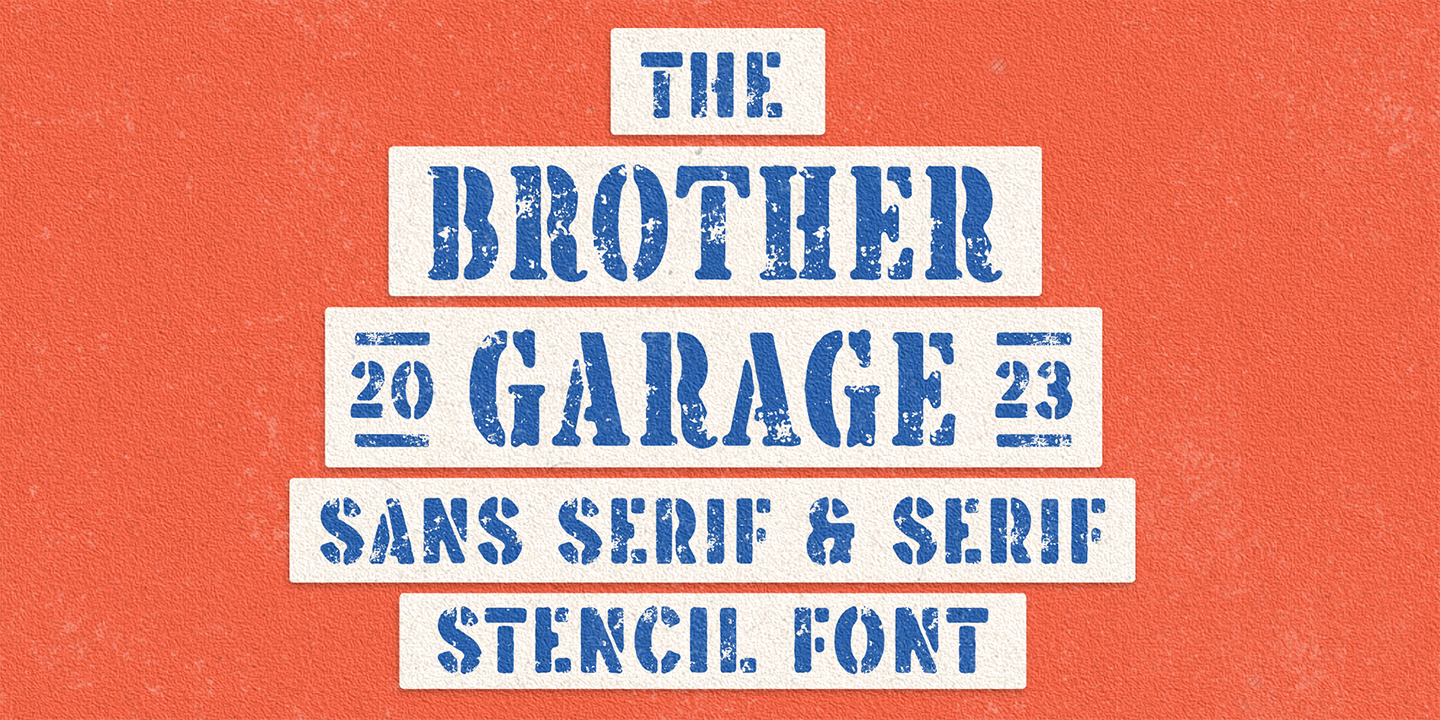
Brother Garage Font is ideal for automotive repair shops, motorcycle dealership branding, vintage car show posters, mechanic workshop signage, custom vehicle graphics, classic car restoration services, industrial machinery companies, and rugged blue-collar business communications.
What makes Brother Garage Font truly exciting is its authentic ability to capture the gritty spirit and honest craftsmanship of hands-on mechanical work through ruggedly crafted letterforms that embody the brotherhood of skilled tradespeople and automotive enthusiasts. This compelling typeface features bold industrial characteristics with weathered influences that instantly convey reliability, expertise, and hardworking authenticity, making it the perfect choice for businesses celebrating practical skills, mechanical mastery, and the proud tradition of honest labor and quality craftsmanship.
The Brother Garage Font family includes regular, condensed, bold, and distressed variations, complemented by industrial ornaments and mechanical alternates that enhance the workshop atmosphere, providing designers with comprehensive tools for creating authentic blue-collar brand experiences and industrial communications that resonate with working-class audiences and automotive enthusiasts.
Automotive businesses and industrial service providers will find Brother Garage Font Free Download essential for establishing the authentic credibility and working-class appeal needed to connect with customers who value honest work and mechanical expertise. This versatile typeface excels in both rugged outdoor signage and detailed service materials, maintaining its industrial character while building trust across all automotive contexts.
The font's robust construction demonstrates exceptional attention to both industrial authenticity and commercial durability, with sturdy proportions that ensure commanding presence while maintaining excellent legibility in challenging workshop environments. From garage bay signs to automotive marketing materials, this hardworking typeface maintains its blue-collar appeal while providing the reliability needed for comprehensive automotive business applications. Industrial brands appreciate how this font effortlessly communicates expertise, brotherhood, and distinguished American working-class design excellence through superior garage-inspired typography.